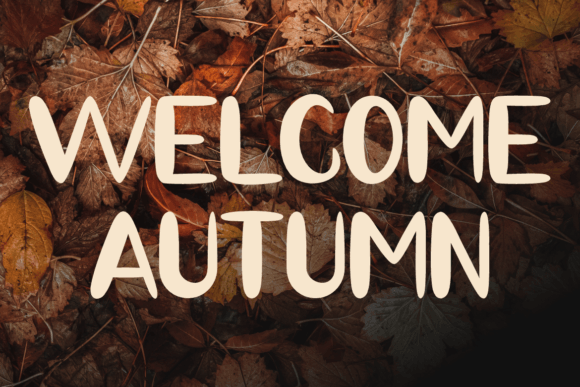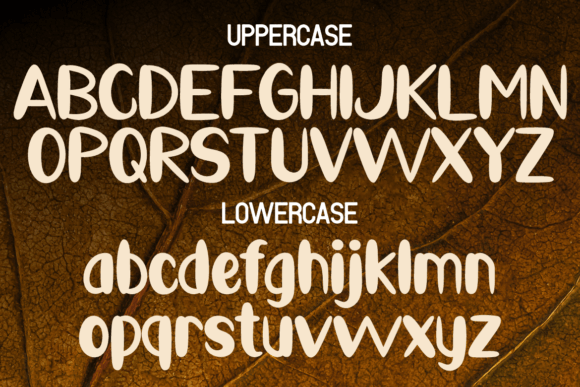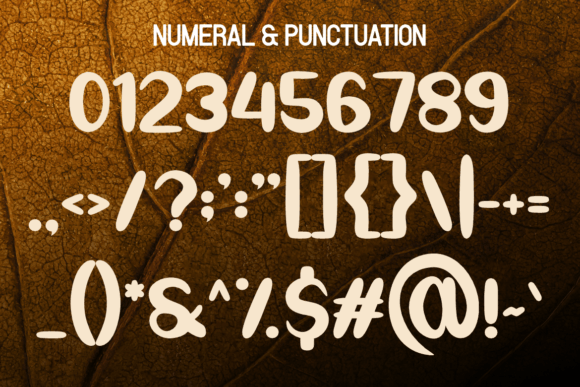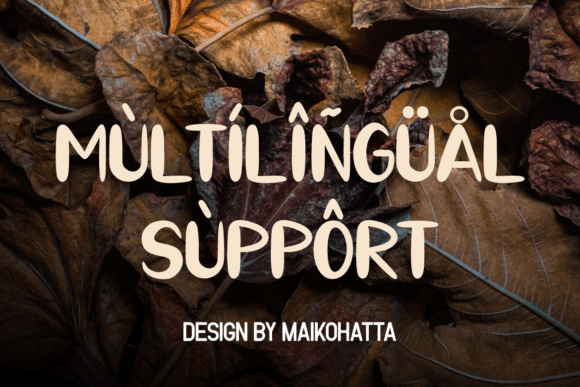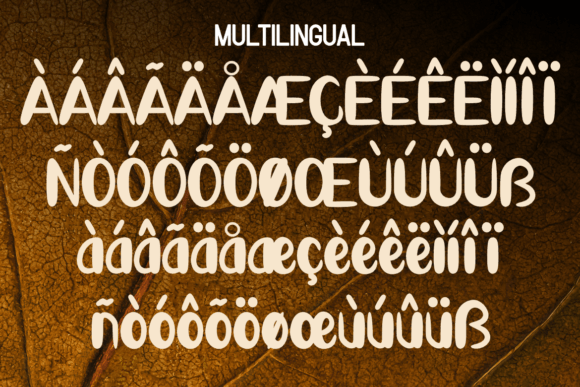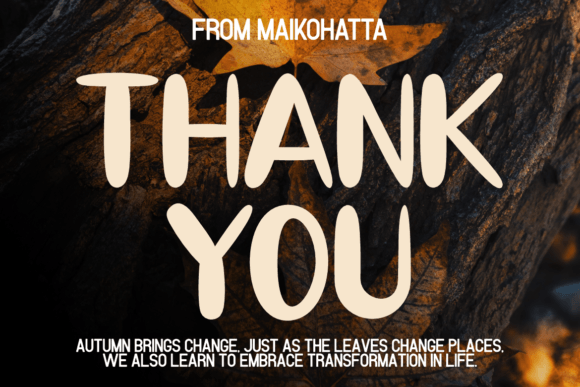
Dried Tree Font: Capturing the Essence of Autumn’s Beauty
As the seasons change, and the leaves transform into vibrant hues of orange, red, and yellow, a sense of nostalgia washes over us. The Dried Tree font is a beautiful typeface that embodies the warmth and charm of the autumn season. With its delicate lines, gentle curves, and soft texture, this font is perfect for designers and crafters looking to add a touch of natural elegance to their projects.
The Characteristics of Dried Tree Font
The Dried Tree font features a unique style that evokes a sense of nostalgia and wonder. Its delicate lines and gentle curves add dimension to the letter characters, creating an impression of softness and tranquillity. The font’s texture has a organic, handmade feel, reminiscent of fallen leaves and twigs. This distinctive style makes it an excellent choice for projects that aim to capture the beauty and charm of the autumn season.
Perfect for Autumn-Inspired Projects
Dried Tree is highly suitable for projects that celebrate the autumn season. Whether you’re designing invitations, greeting cards, posters, or other creative projects, this font will add a stunning natural touch to your work. The font’s warm and inviting tone will transport your audience to a cozy autumnal setting, filled with the sights, sounds, and scents of the season.
Design Ideas with Dried Tree Font
The versatility of the Dried Tree font makes it perfect for a wide range of design projects. Here are some ideas to get you started:
- Autumn Invitations: Create beautiful invitations for harvest-themed parties, Thanksgiving gatherings, or fall festivals using the Dried Tree font.
- Fall Greeting Cards: Design warm and cozy greeting cards for friends and family, featuring the Dried Tree font and autumn-inspired illustrations.
- Posters and Flyers: Use the Dried Tree font to create eye-catching posters and flyers for autumn events, such as apple picking, hayrides, or pumpkin patches.
- Social Media Graphics: Add a touch of autumn charm to your social media graphics, including Facebook posts, Instagram stories, and Twitter headers.
Tips for Using Dried Tree Font
To get the most out of the Dried Tree font, here are some tips to keep in mind:
- Pair with Earthy Colors: Combine the Dried Tree font with earthy colors like olive green, terracotta, and golden yellow to create a cohesive autumnal look.
- Add Natural Textures: Incorporate natural textures like wood, stone, or leaves to add depth and interest to your designs.
- Experiment with Ligatures: Take advantage of the font’s ligatures to create beautiful, flowing text that adds to the overall sense of elegance.
The Dried Tree font is a beautiful and versatile typeface that captures the essence of the autumn season. With its delicate lines, gentle curves, and soft texture, it’s perfect for designers and crafters looking to add a touch of natural elegance to their projects. Whether you’re creating invitations, greeting cards, posters, or social media graphics, the Dried Tree font is sure to bring a sense of warmth and nostalgia to your designs.